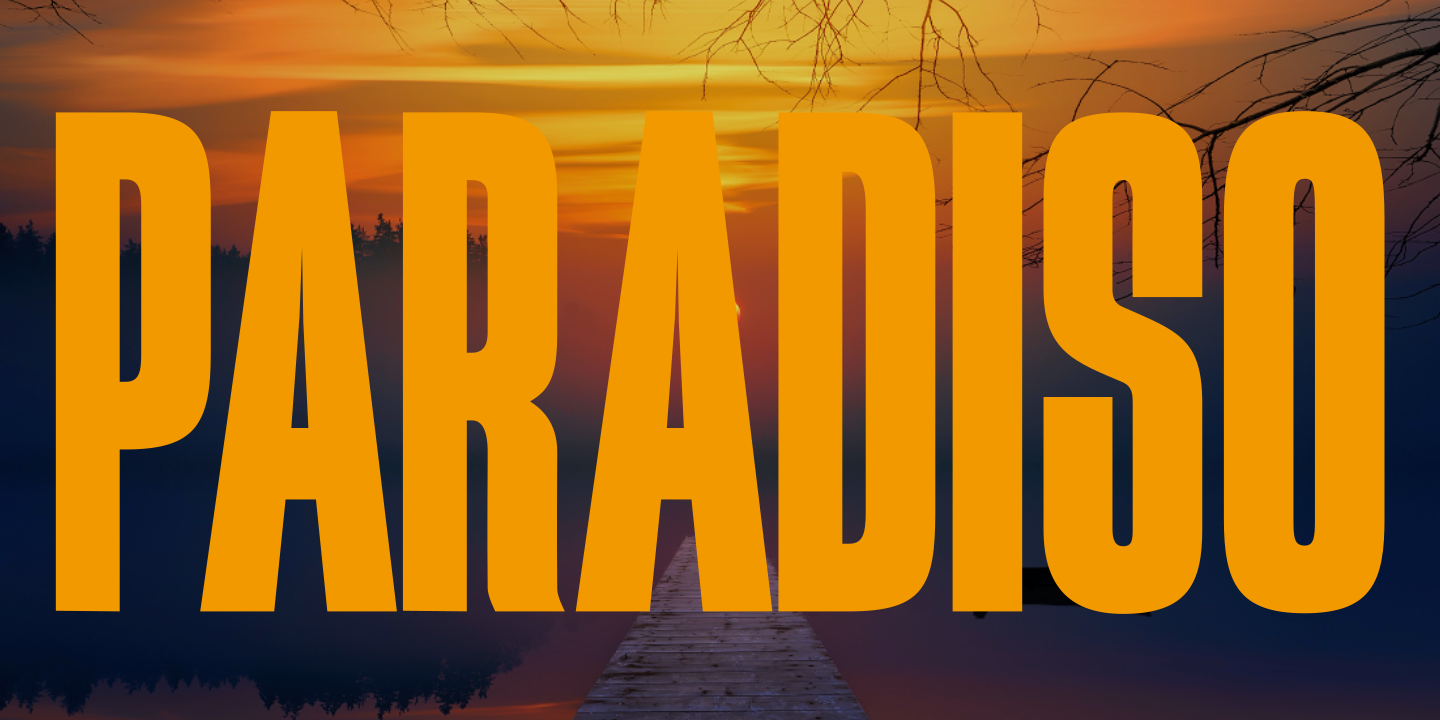
Paradiso Font Free Download delivers heavenly typography that combines divine elegance with contemporary sophistication for luxurious design applications. This commercial font requires purchase for business use, but you can download it for free for testing purposes to evaluate its distinctive paradise-inspired characteristics in your creative projects.
Paradiso Font excels across diverse design applications including luxury resort branding, tropical destination marketing, premium spa communications, high-end travel publications, wedding venue materials, heavenly-themed restaurants, luxury retreat centers, and sophisticated hospitality communications. Its ethereal character makes it particularly effective for projects requiring aspirational appeal while maintaining elegant sophistication, ensuring your designs convey paradise-like quality and premium luxury across both digital platforms and exclusive print materials.
What makes Paradiso Font truly exciting is its masterful interpretation of celestial beauty and earthly paradise enhanced with contemporary design refinement that creates compelling luxury communications. The font features meticulously crafted letterforms that incorporate subtle elements reminiscent of flowing clouds and heavenly grace while maintaining excellent readability and professional application. Its distinctive character construction draws inspiration from classical paradise imagery and modern luxury aesthetics, creating text that feels both transcendent and contemporarily relevant. The font's optimized spacing and elegant proportions ensure superior performance across various luxury applications while preserving the characteristic serenity that defines its paradisiacal personality.
Paradiso Font presents a comprehensive type family designed to support demanding luxury and hospitality design requirements. The family typically includes thin, light, regular, medium, bold, and black weights, complemented by matching italic styles that provide complete typographic flexibility for sophisticated paradise-themed brand hierarchies. Advanced versions often feature extended character sets with decorative flourishes, celestial ornaments, and specialized glyphs essential for luxury hospitality communications and premium destination applications.
The Paradiso Font Free Download represents exceptional value for designers working on luxury hospitality and destination-focused projects across multiple industries. Whether developing tropical resort identity, creating luxury spa communications, designing premium travel materials, or producing high-end wedding venue content, this font delivers consistent elegance and memorable paradisiacal appeal. Its heavenly characteristics make it particularly effective for industries including luxury hospitality, premium travel, destination weddings, and high-end wellness sectors seeking to communicate transcendent quality and aspirational experiences.
For optimal results, Paradiso Font pairs beautifully with sophisticated color palettes and elegant design elements that complement its celestial character. Its divine presence dominates headline applications while maintaining exceptional legibility in luxury correspondence contexts. The font's paradisiacal sophistication and heavenly appeal make it an invaluable resource for creating aspirational communications that resonate with discerning audiences seeking premium experiences and luxury lifestyle destinations.